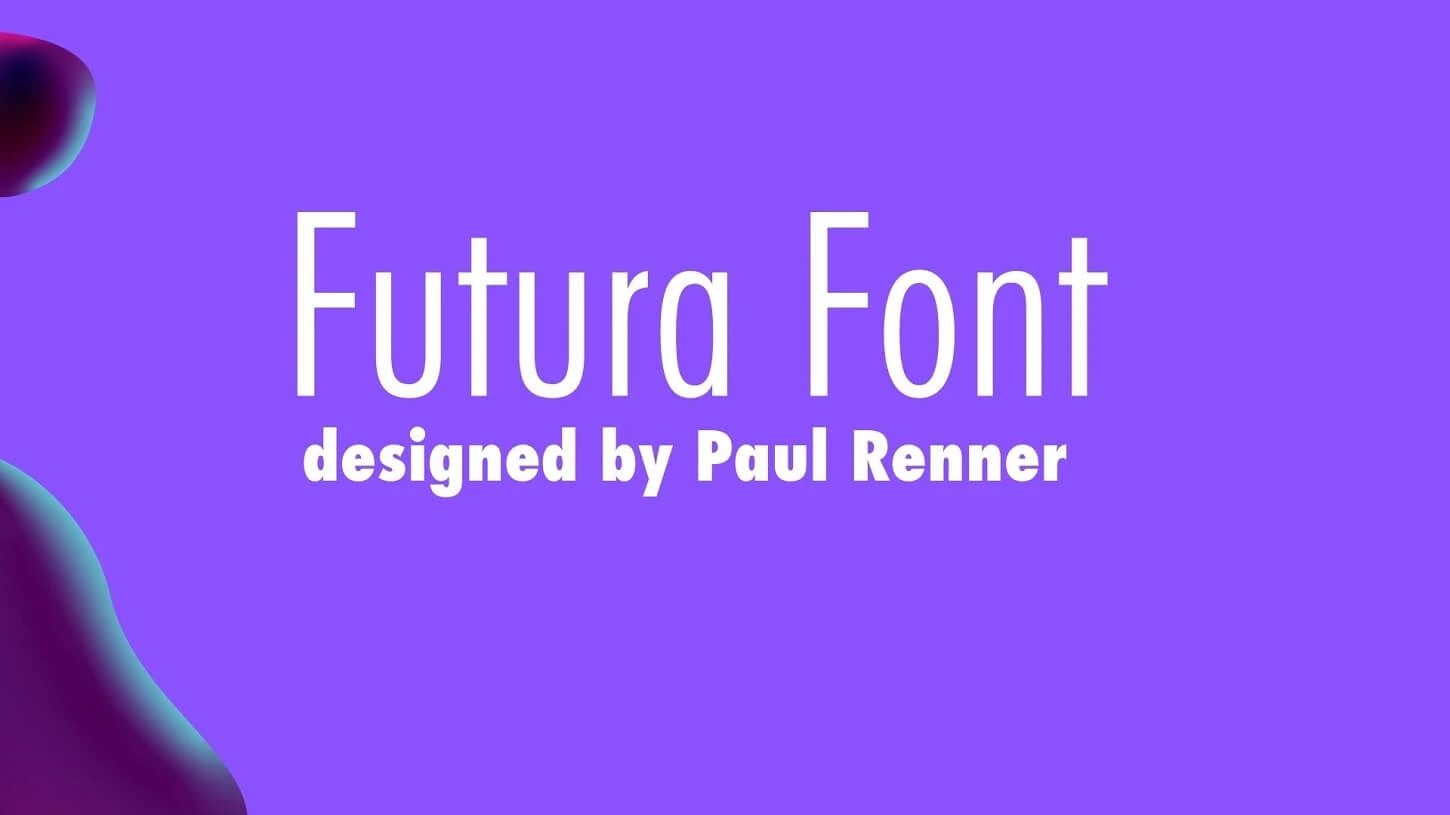
Futura that was created in 1927, by a typeface designer Paul Renner belongs to the geometric sans serif typeface family. This font was designed to contribute in the Frankfurt project.
After 3 years futura font was available for use. Due to its geometric shapes and art work, it supports the uppercase, lowercase and some other special characters.
NameFutura Font
DesignerPaul Renner
FoundryBauer Type Foundry
TypeSans-serif
Date Released1927